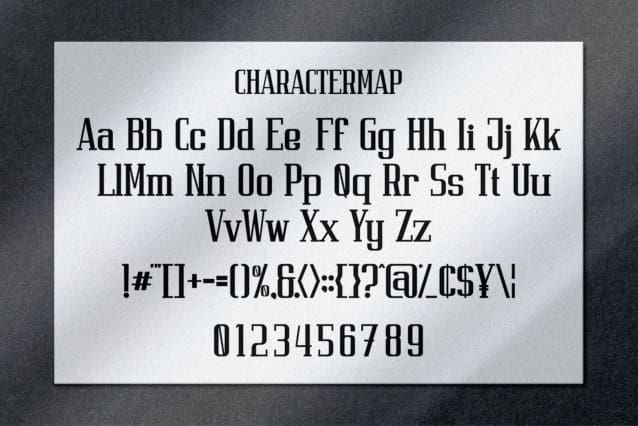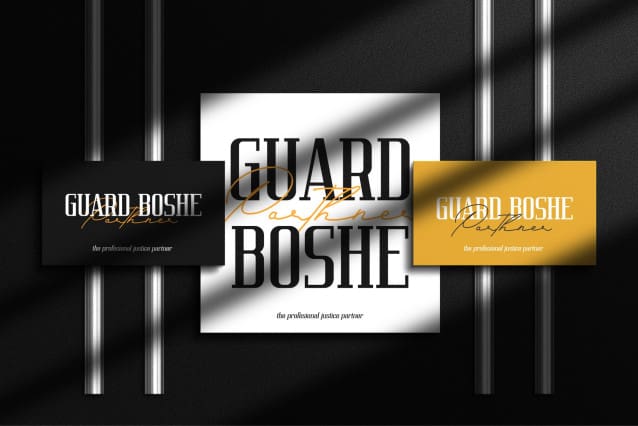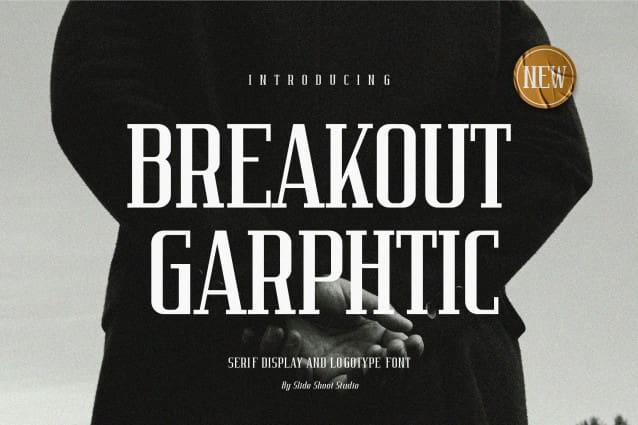
Breakout Graphtic Font
Breakout Graphtic Font is a condensed serif font with elegant and modern feels. It will be perfectly used for Branding, Logo Design, Lettering, Logotype, Clothing, Poster, magazine, packaging, posters, shopping bags, t-shirts, book covers, photography, special events and other design project.
Designer Name: SlideShoot